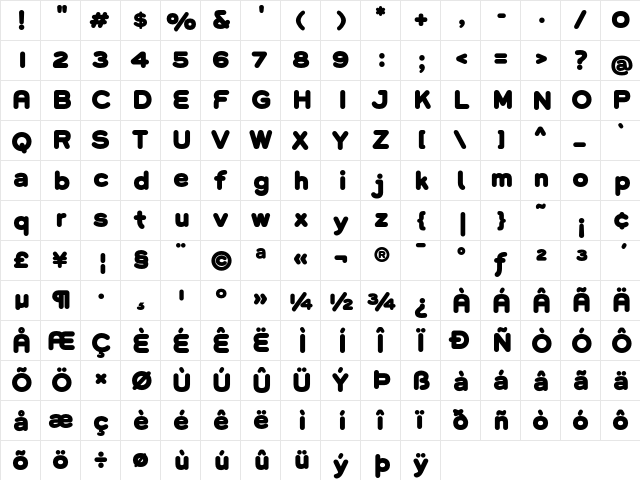
Grover Heavy Regular
Design Context for Grover Heavy Typeface
Grover Heavy offers clean, dependable letterforms without strong stylistic allegiance, making it a practical choice for designers who need flexibility.